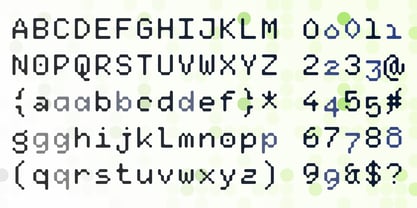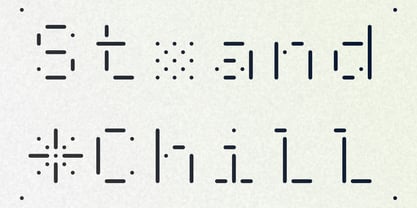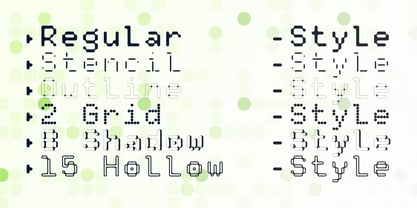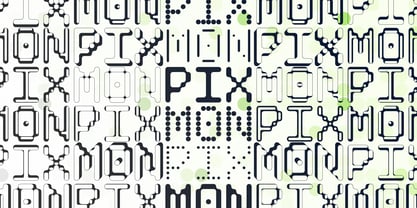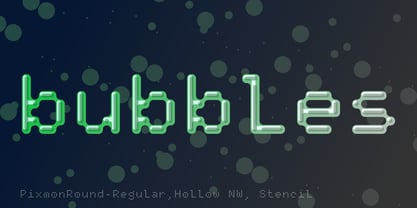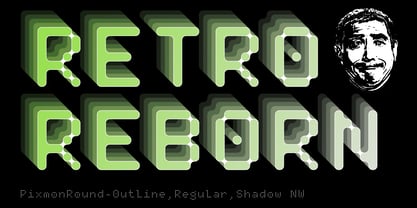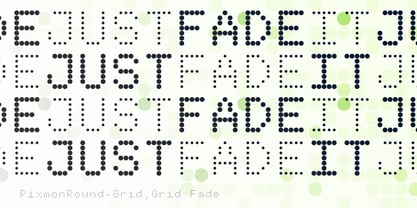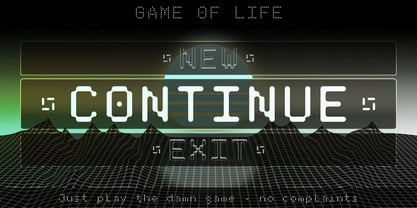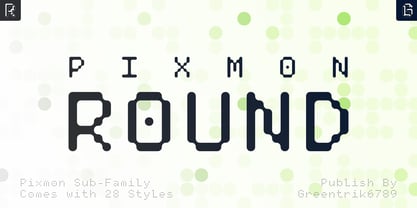
Pixmon Round
The Pixmon Round Font Family was designed by Tri Kuncoro and published by Greentrik6789. Pixmon Round contains 56 styles and family package options. More about this family
Pixmon Round is a distinctive subfamily of the Pixmon type system, designed as an experimental modular display font that embraces bold and unconventional visuals. Featuring rounded, pixel-based shapes, it offers a friendly yet striking appearance, making it perfect for a variety of applications such as posters, game titles, editorial layouts, and creative branding. In addition to a comprehensive character set, Pixmon Round also includes a Mini Subfamily, which provides a smaller glyph range for projects that require only basic Latin support. This option ensures a lighter, more efficient file without compromising on style. With its clean structure, strong personality, and instant visual impact, Pixmon Round stands out in any design context.